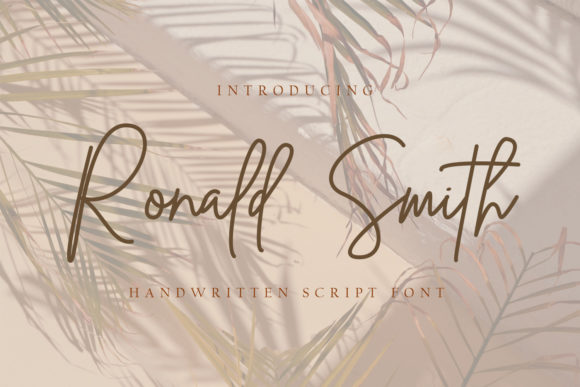
In a realm of digital expression, where words dance across screens, there exists a font that captivates with its timeless elegance and enchanting charm: Ronald Smith Font. Crafted by the visionary hands of fiqiart, this script font transcends mere aesthetics, embodying a spirit of artistry and sophistication.
Ronald Smith Font is a love letter to the enduring beauty of calligraphy, a script font that pays homage to the masters of penmanship. Its graceful curves and delicate swashes evoke a sense of nostalgia, reminiscent of handwritten letters carefully penned with love and care.
With its authentic feel and captivating allure, Ronald Smith Font breathes life into your creative endeavors. Envision wedding invitations adorned with intricate lettering, stationery art that radiates timeless charm, social media posts that command attention, and greeting cards imbued with warmth and personality.
Unleash your inner artist and transform your digital creations into masterpieces. Ronald Smith Font is the perfect companion for designers, calligraphers, bloggers, and creative entrepreneurs seeking to elevate their visual storytelling. Embrace the allure of Ronald Smith Font and embark on a creative journey where every word carries the weight of history and the promise of endless possibilities.